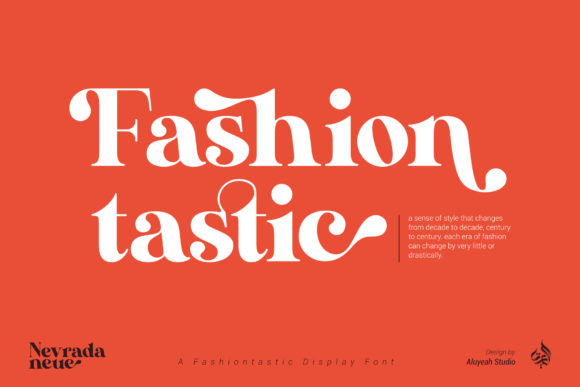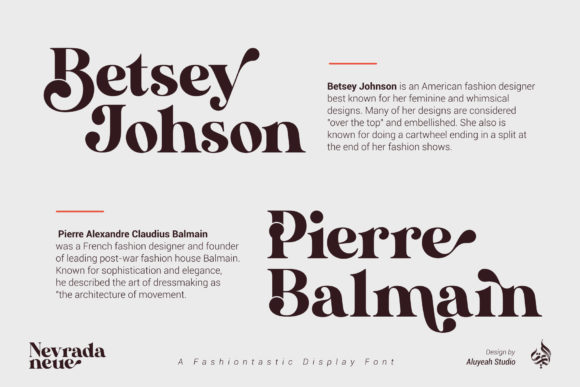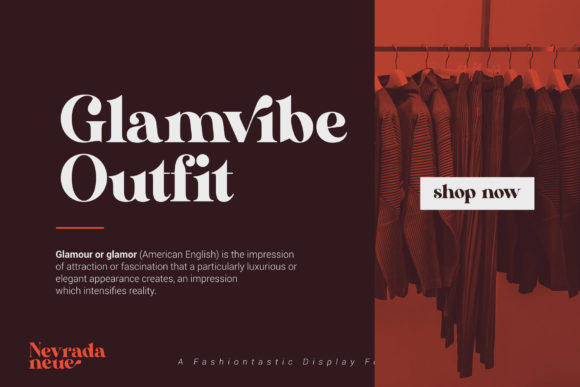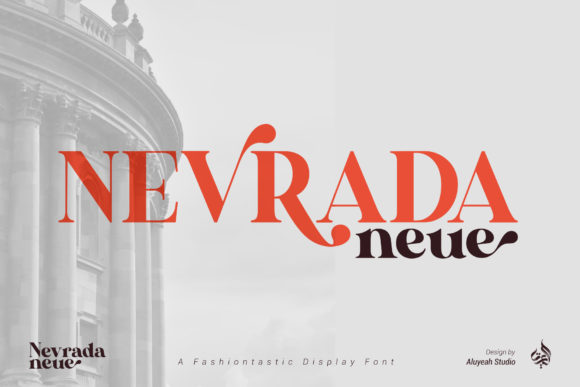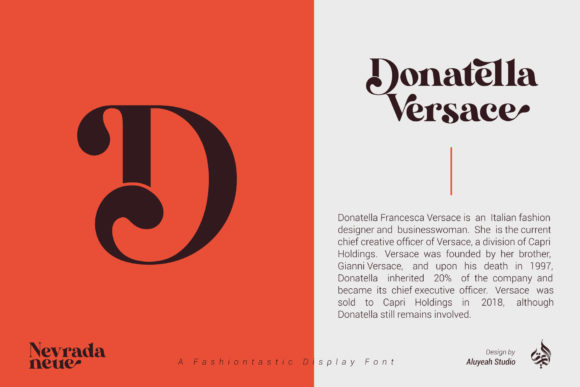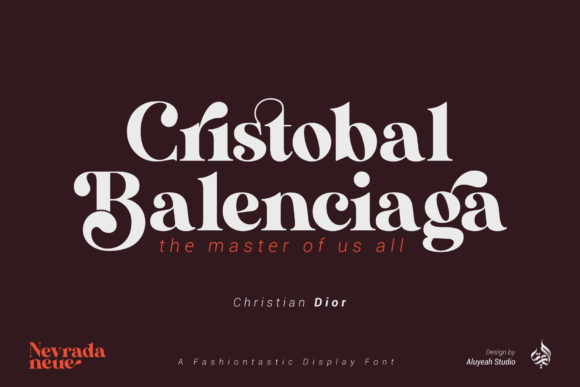
Introducing AL Nevrada Neue Font: Elevate Your Designs with Elegance
In the world of design, typography plays a crucial role in conveying messages, expressing creativity, and making a lasting impression. For designers, crafters, and DIY enthusiasts, finding the perfect font can be a daunting task. However, with the introduction of AL Nevrada Neue Font, the search is over. This magical display font is carefully crafted with a touch of elegance, making it an ideal choice for a wide range of design projects.
The Elegance of AL Nevrada Neue Font
AL Nevrada Neue Font is a masterpiece of typographic design, boasting a unique blend of sophistication and charm. Its elegant features make it perfect for designs that require a high level of refinement, such as luxury branding, high-end product labels, and sophisticated wedding designs. The font’s carefully crafted lines, curves, and swashes come together to create a truly regal appearance that will elevate your designs to new heights.
One of the standout features of AL Nevrada Neue Font is its incredible versatility. Whether you’re working on a branding project, creating headings, designing wedding invitations, or crafting custom signatures, this font is up to the task. Its adaptability also extends to logos, labels, and a wide range of other design applications, making it an excellent addition to any designer’s toolkit.
AL Nevrada Neue Font is a dream come true for designers and crafters who strive for perfection in their work. With this font, you can:
- Create stunning branding materials that exude luxury and sophistication
- Design beautiful wedding invitations, programs, and decorations
- Develop eye-catching logos and labels that stand out from the crowd
- Elevate your craft projects with elegant headings and titles
Key Features of AL Nevrada Neue Font
So, what makes AL Nevrada Neue Font so special? Here are some of its key features:
- Magical display font with a touch of elegance
- Carefully crafted lines, curves, and swashes for a refined appearance
- Perfect for branding, headings, wedding designs, invitations, signatures, logos, labels, and more
- Highly versatile and adaptable to various design applications
- Easy to use and integrate into your design workflow
| Font Name | AL Nevrada Neue Font |
| Author | Aluyeah Studio |